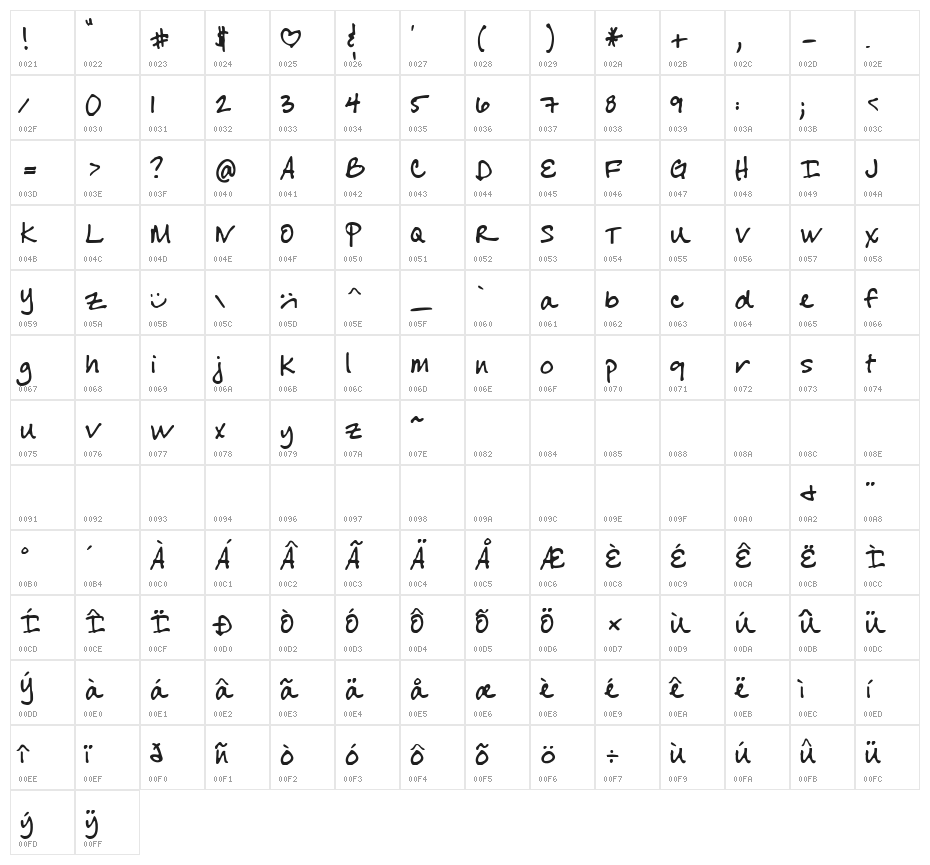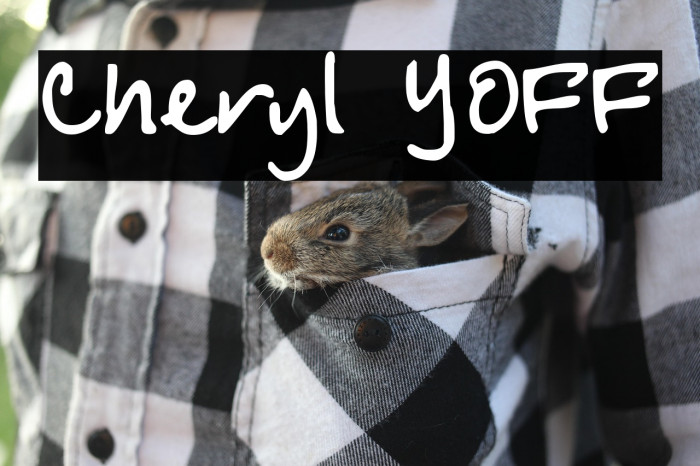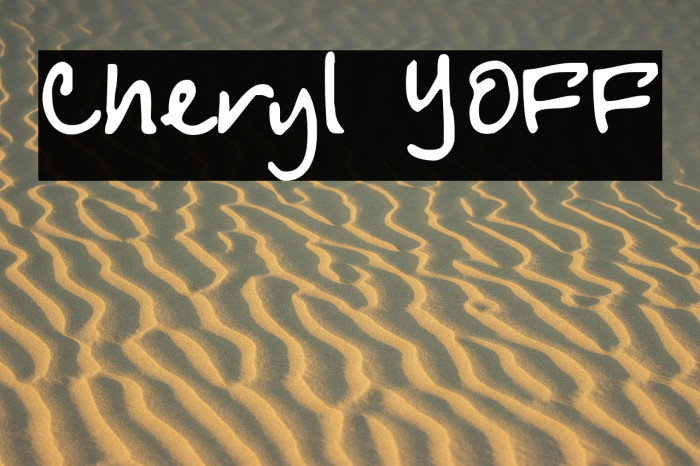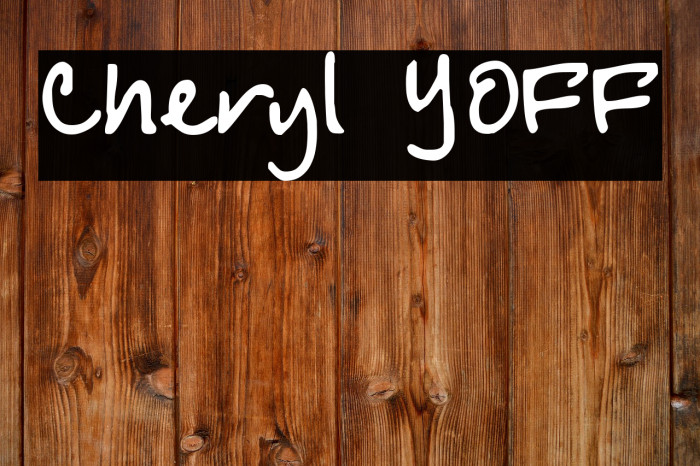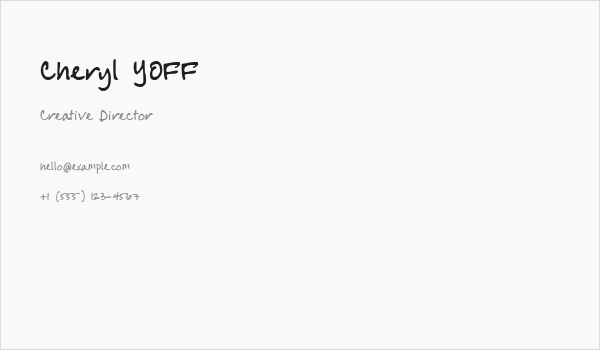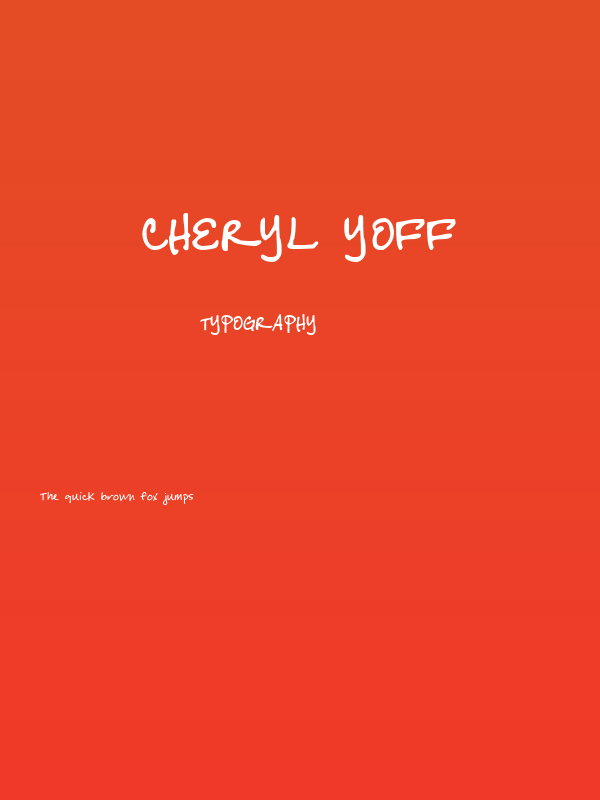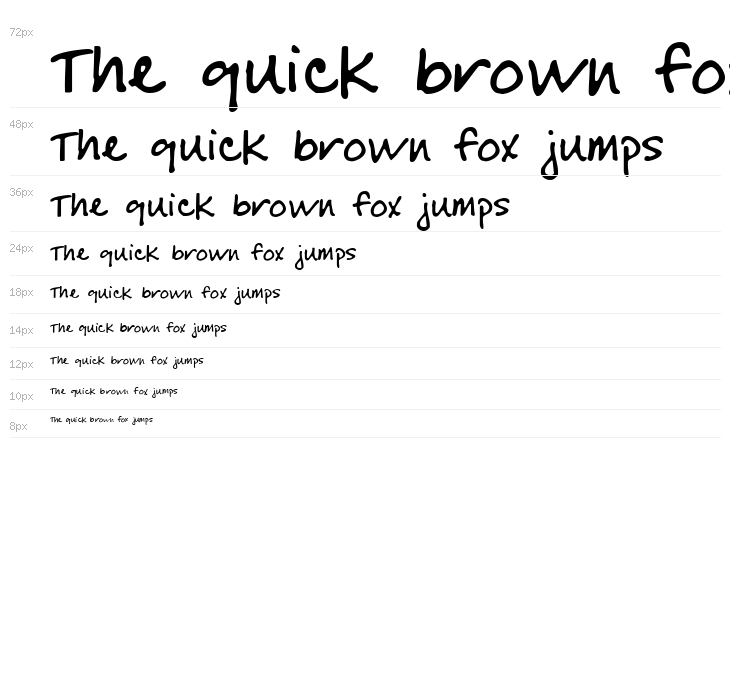
Cheryl YOFF Font
Cheryl YOFF Description
This font features a playful and casual handwritten style, characterized by its organic and free-flowing letterforms. The letters are slightly irregular, giving it a personal and informal touch. The strokes are bold and consistent, with a medium contrast between thick and thin lines. The overall appearance is lively and dynamic, making it suitable for projects that require a friendly and approachable feel. The characters are well-spaced, ensuring readability while maintaining the font's unique charm. Its versatility allows it to be used in various creative contexts, from personal notes to branding materials.
| Use Case | Logos, Headlines, Informal Text |
| Proposed Projects | Ideal for greeting cards, personal branding, social media graphics, and informal invitations. |